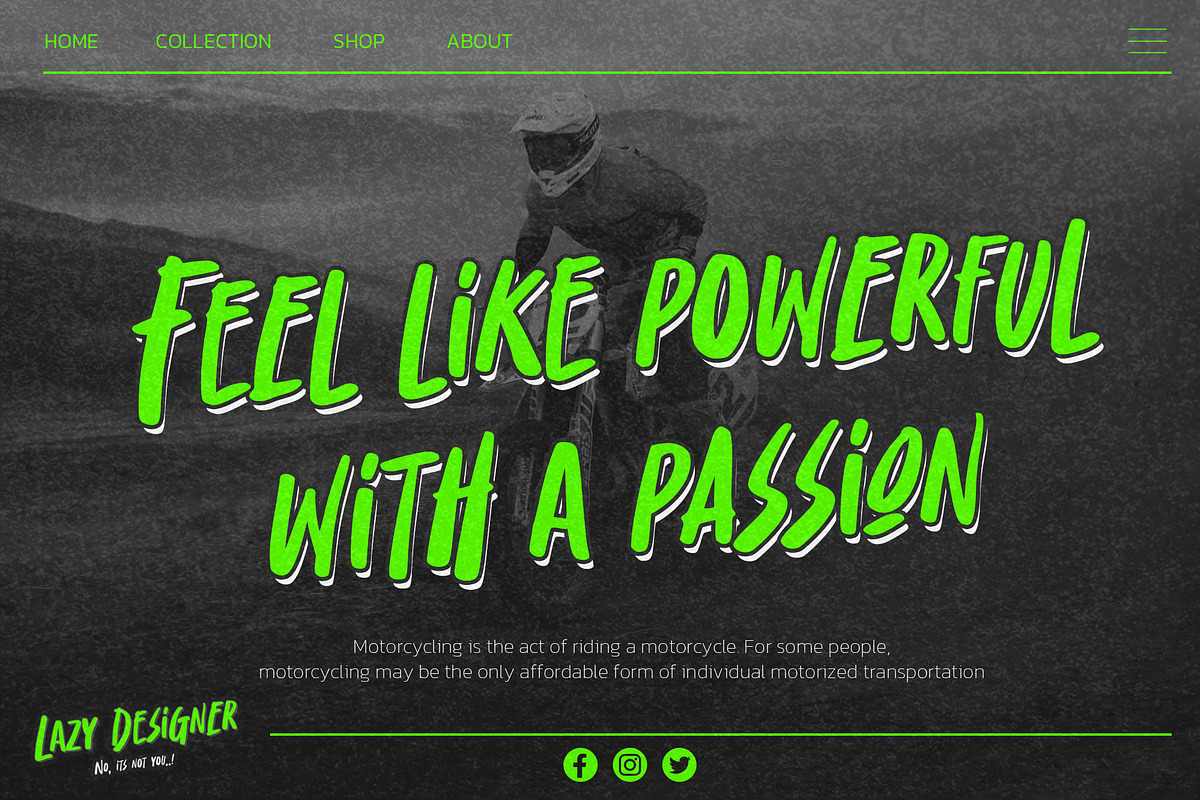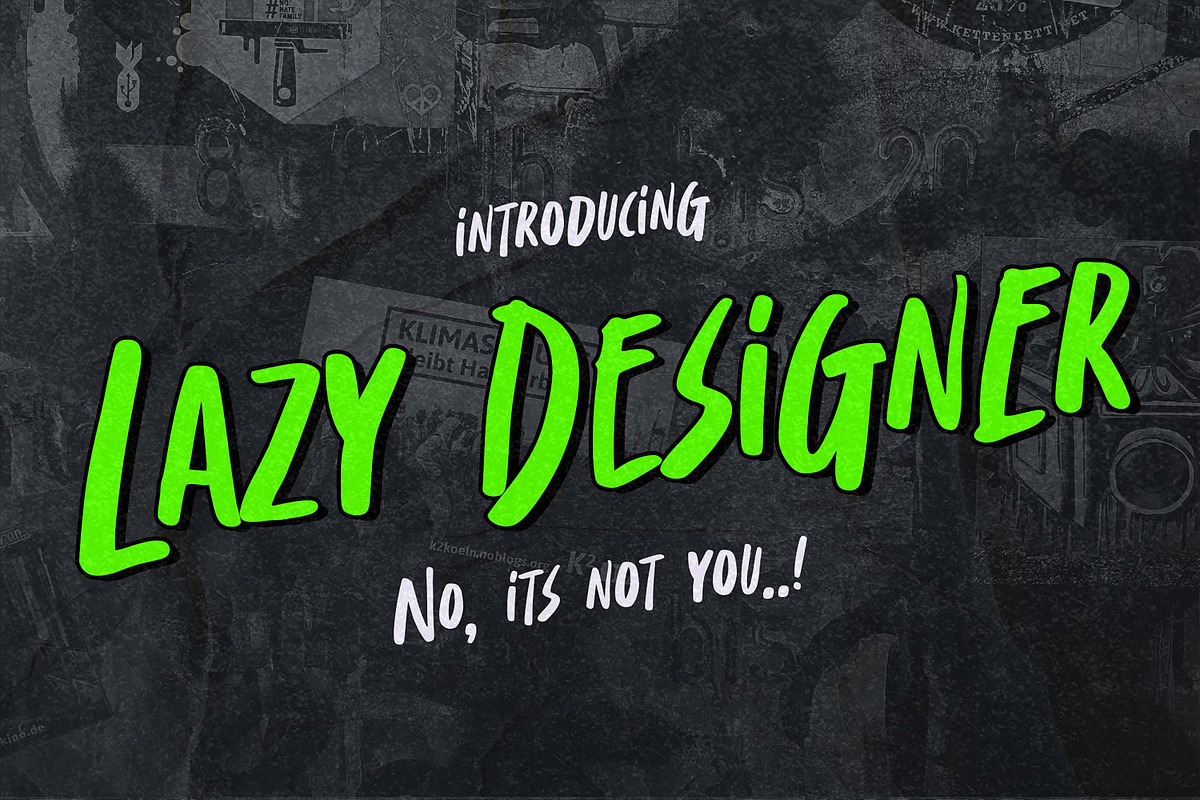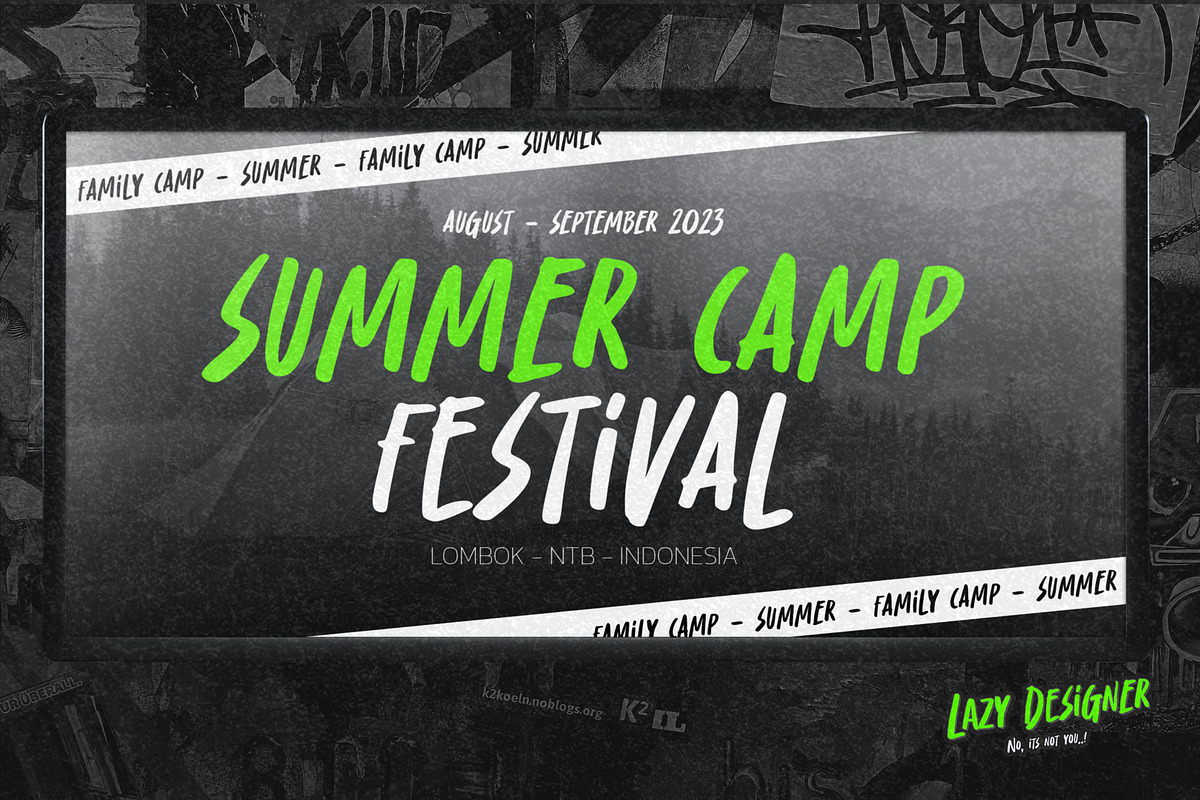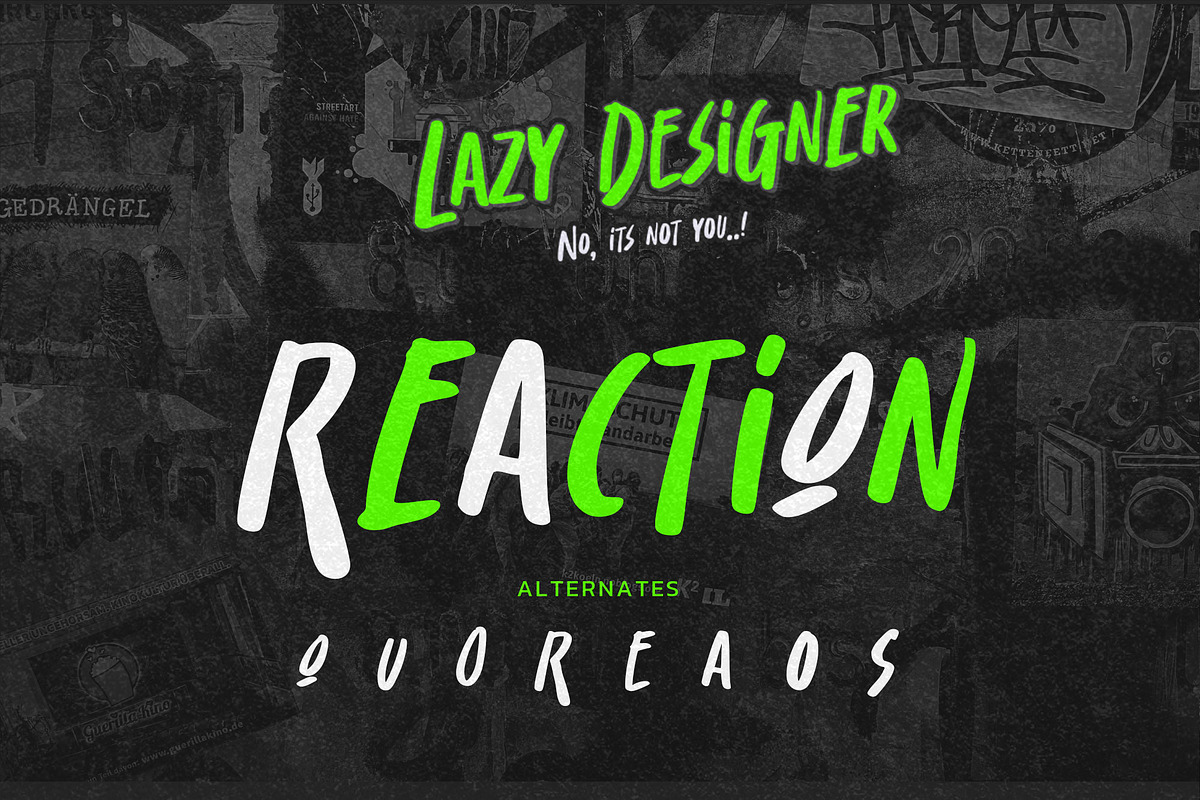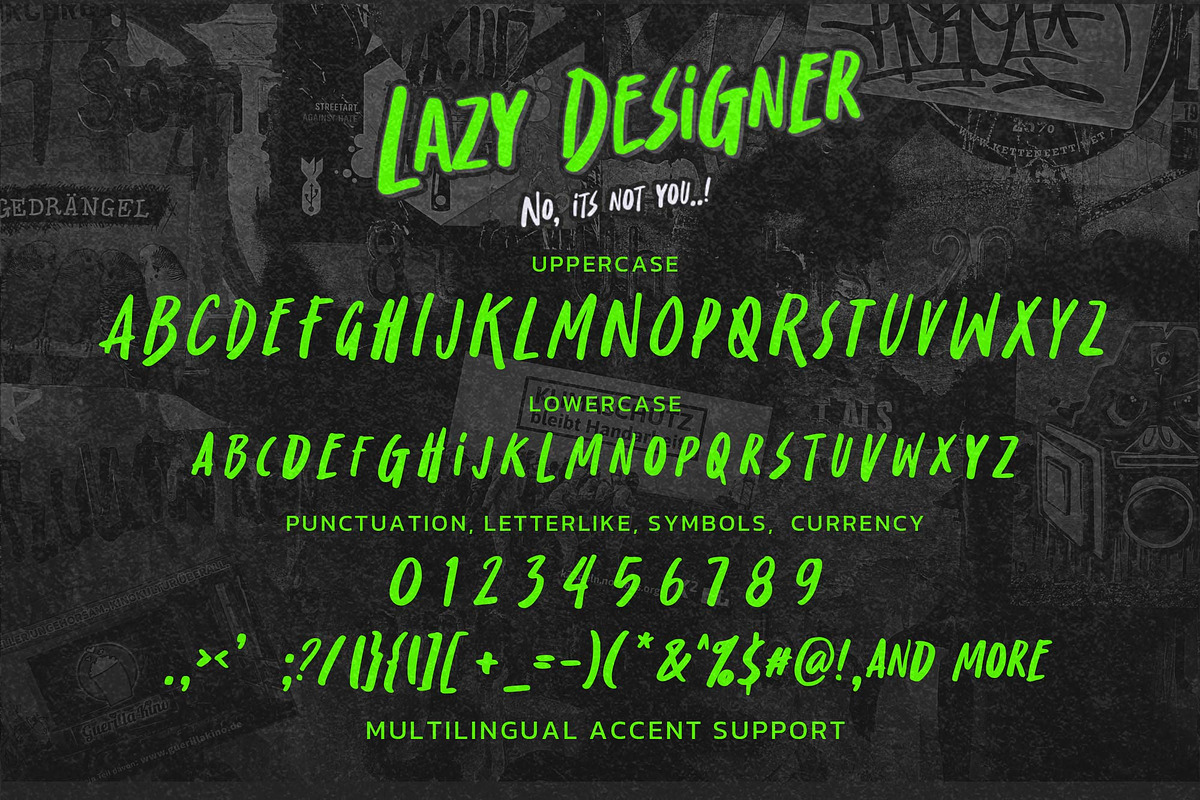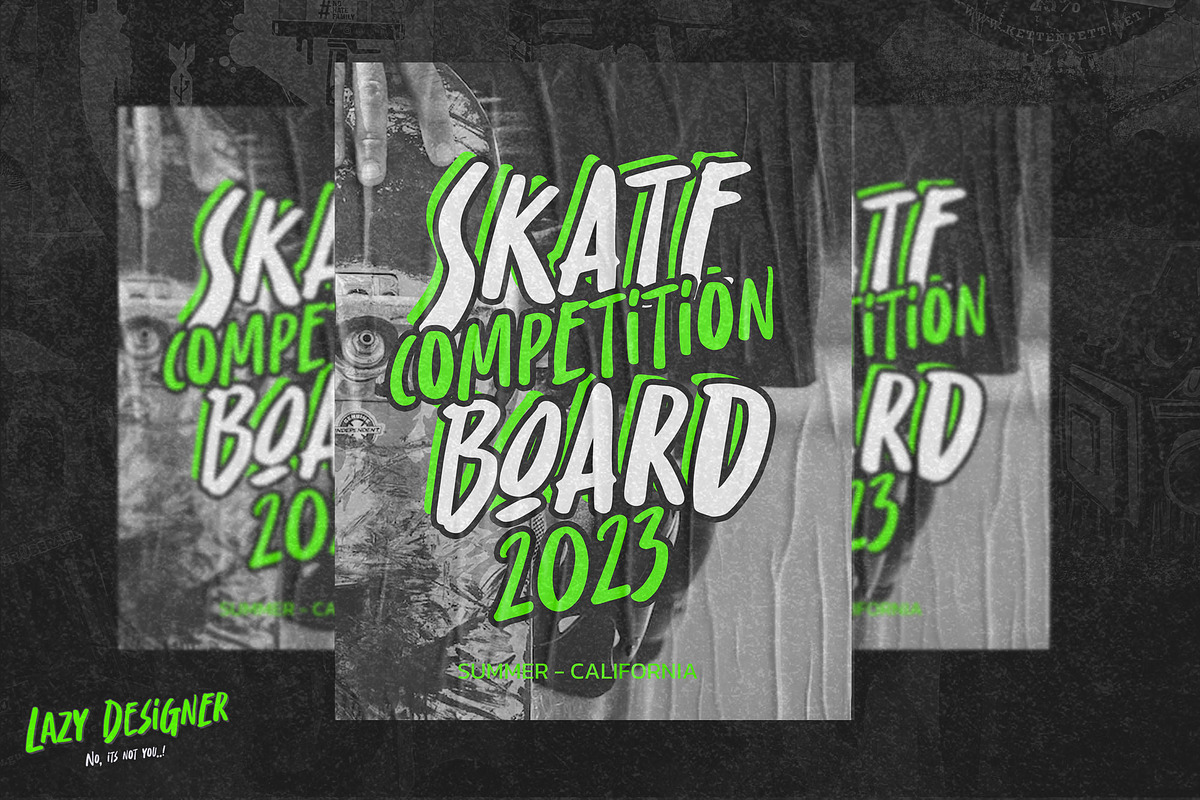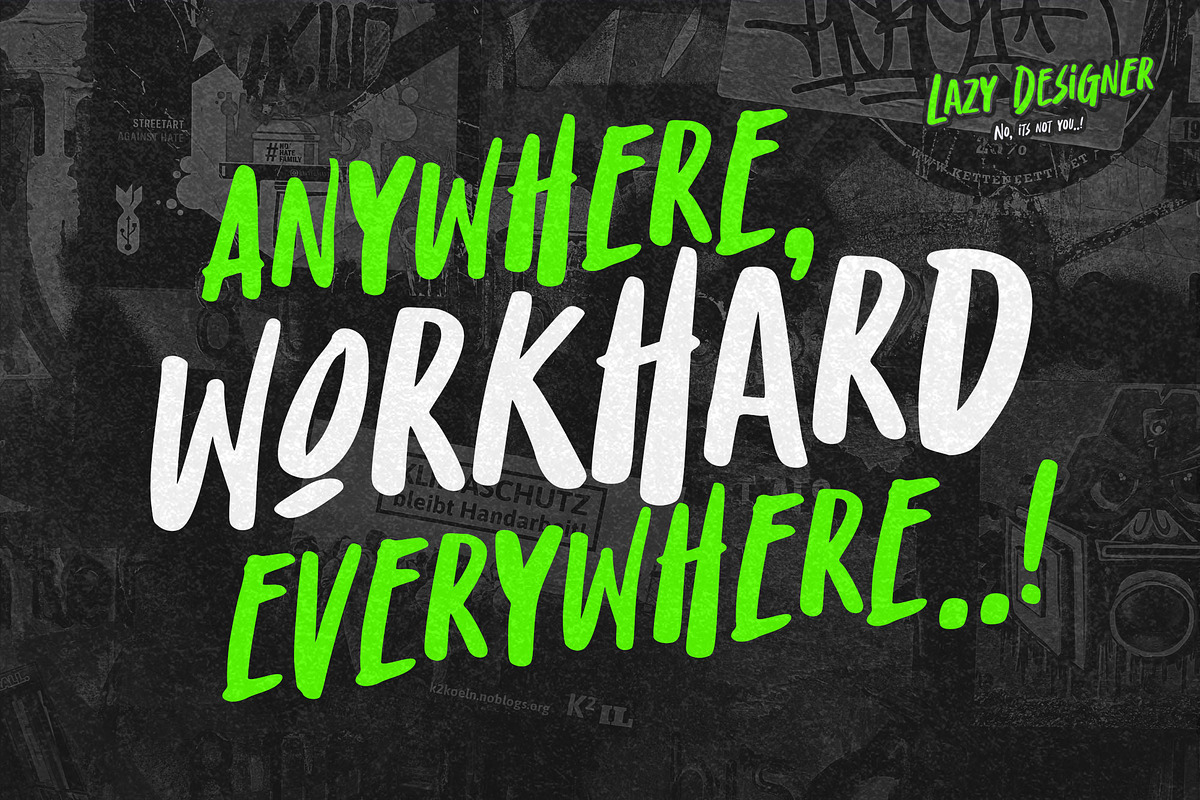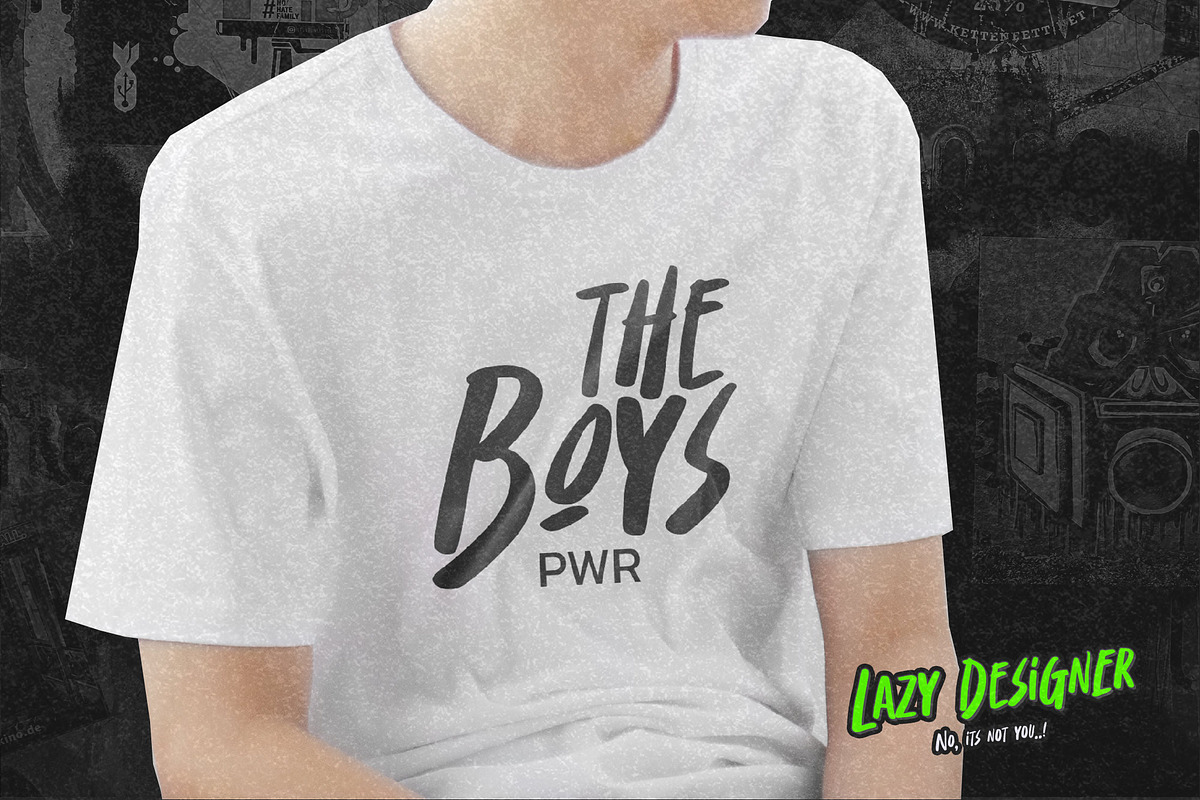
Lazy Designer – Natural Handwritten
Lazy Designer is a display typeface created with a purposely laid-back, loose, and playful personality. Its relaxed, expressive strokes and slightly messy handcrafted look give it a fun, spontaneous vibe like something designed while chilling out, yet still looking cool and eye-catching. With its flexible character and free-flowing style, Lazy Designer is perfect for designs that aim to feel fun, casual, humorous, and creatively quirky. Despite the name “Lazy,” your designs will still look fresh, unique, and standout.
• playful posters & headlines • fun and humorous social media content • casual merchandise designs • creative branding with a quirky tone • illustrations, doodles & kid-friendly concepts • cheerful product packaging • any creative project that wants a non-serious, standout vibe
playful • casual • relaxed • quirky • expressive • fun
Lazy Designer Typeface (OTF/TTF/WEB) • expressive, free-form display letterforms • lightly textured strokes with a natural feel • fun and unique handwritten characters • standard glyph set • multilingual accents support • PUA encoded (fully accessible) • works on PC & Mac • easy installation • compatible with Adobe Illustrator, Photoshop, InDesign, Microsoft Word & more